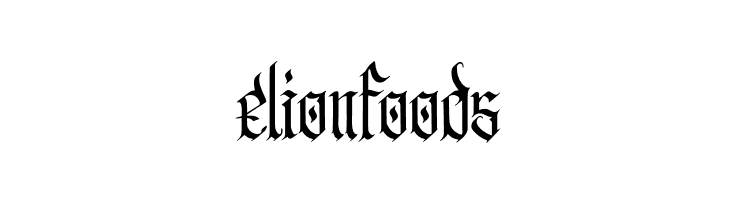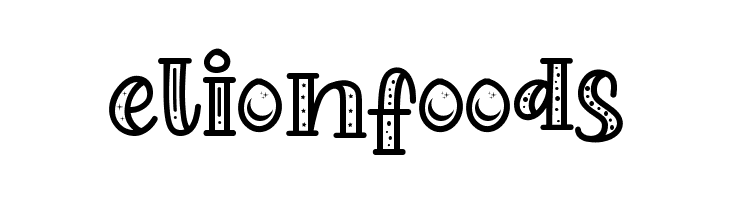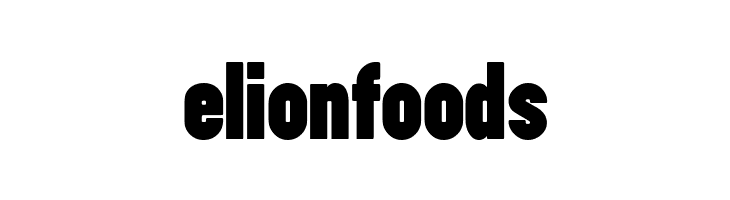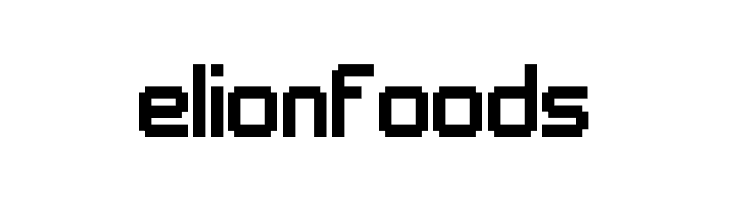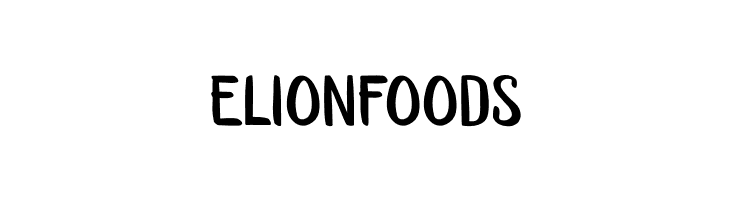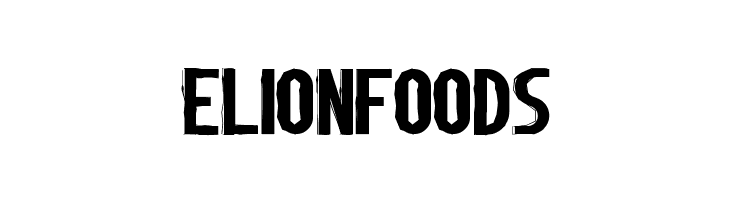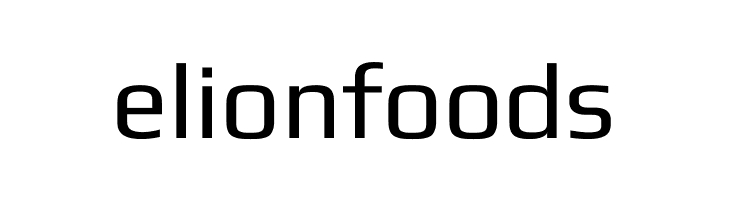
• Platonick NF
A bold, geometric font with Art Deco influences and dynamic character shapes.
• PlatonickNF
A bold, geometric font with a futuristic and dynamic style.
• Play
• Play And Win Demo
A bold, hand-drawn style font with a dynamic and energetic appearance.
• Play Spoon Demo
A playful, decorative font with bold, patterned letters.
• Playing Cards DEMO
A playful, hand-drawn font with rounded edges and a consistent height.
• Playlines Free
A geometric, monospaced font with a modern, digital look.
• PlayMeGames Demo
A bold, pixelated font inspired by classic video game graphics.
• Playout Demo
A playful, bold font with decorative elements and a hand-drawn style.
• PlaytoonDEMO
A playful and whimsical font with bold, flowing characters and a lively aesthetic.
• Plaza Avenue Demo
An elegant and decorative script font with flowing, whimsical strokes.
• Pleasingly Plump NF
A bold, playful font with rounded, tilted characters.
• PleasinglyPlumpNF
A bold and playful font with thick, rounded strokes and a whimsical style.
• Plone Ware Shar_Mla
( Chicken Scratch Script )
A decorative and artistic style with intricate curves and unique shapes.
• Podkova
A robust slab serif font with a classic yet modern aesthetic.
• PODORADONGdemoRegular
A modern, geometric font with playful elements and clean lines.
• Points West NF